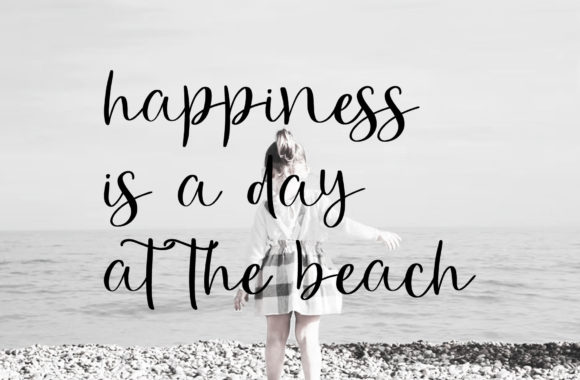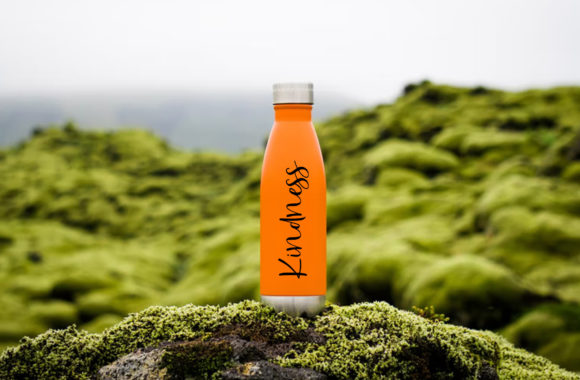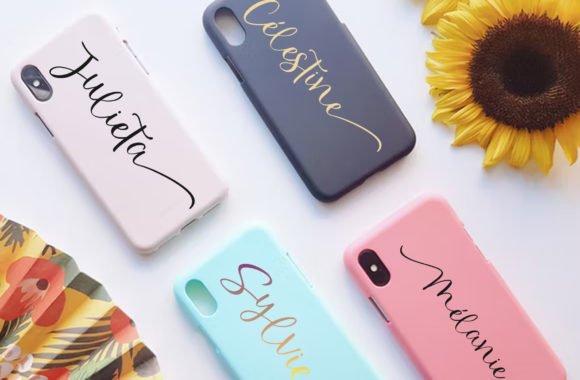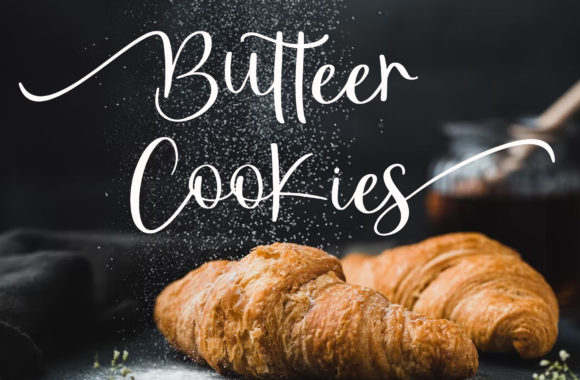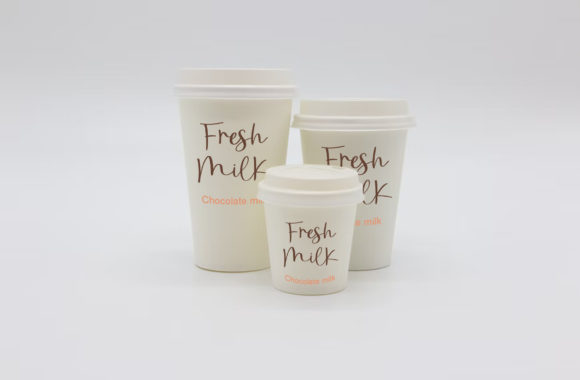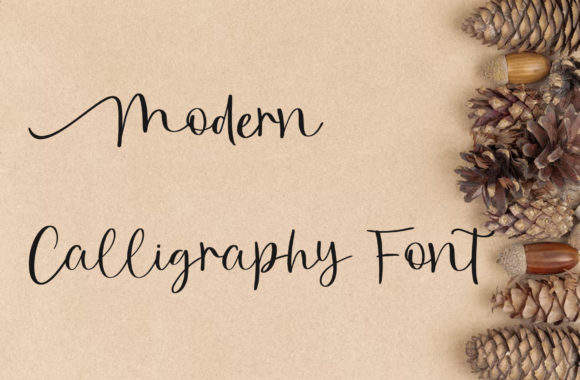
The Art of Elegant Design: Introducing Breakable Font
Have you ever been brainstorming a design project and suddenly, the perfect font pops into your mind? For many designers, this moment is the spark that sets their creative juices flowing. For me, it was a vision of a beautifully handwritten invitation that led me to discover the Breakable Font – a modern calligraphy font that’s as versatile as it is sophisticated.
Breakable Font is a game-changer for designers looking to add a touch of elegance to their branding, wedding invites, and cards. With its contemporary accents and PUA encoding, this font makes it easy to access all the glyphs and swashes you need to create stunning designs. Whether you’re a seasoned pro or just starting out, Breakable Font is a valuable addition to any designer’s toolkit.
- Unique Characteristics: Breakable Font features a unique blend of modern and vintage design elements, with intricate details and subtle texture effects that give it a distinctive look.
Breakable Font Review
As a designer, I was excited to try out Breakable Font and see if it lived up to its promise. Here’s my honest review:
- Unique, artistic feel: Breakable Font has a distinct, hand-drawn look that can add a touch of whimsy to any design.
- High-quality glyphs: The font includes a wide range of characters, including international characters and punctuation.
- Good for creative projects: Breakable Font is perfect for designers who want to add a bit of personality to their work, such as in branding, advertising, or packaging design.
- Limited legibility: While the font’s unique look is a major selling point, it can be difficult to read, especially at smaller font sizes.
- Not suitable for body text: Due to its artistic feel, Breakable Font is best used for headings, titles, or other display text.
Breakable Font is a great choice for designers who want to add a touch of creativity to their work. While it may not be the best choice for body text or everyday use, it’s perfect for projects where you want to make a statement.
Tips for Getting the Most Out of Breakable Font
To get the most out of Breakable Font, experiment with different font sizes, colors, and styles to create visually appealing effects.
Use Breakable Font for titles, headings, and other attention-grabbing text elements to add a unique touch to your designs.
Breakable Font is commonly used for:
- Titles and headings
- Attention-grabbing text elements
- Quotations and captions
- Use Breakable Font to create the quote, with each letter fragment breaking away from the rest.
- Experiment with different font sizes and styles to add depth and visual interest.